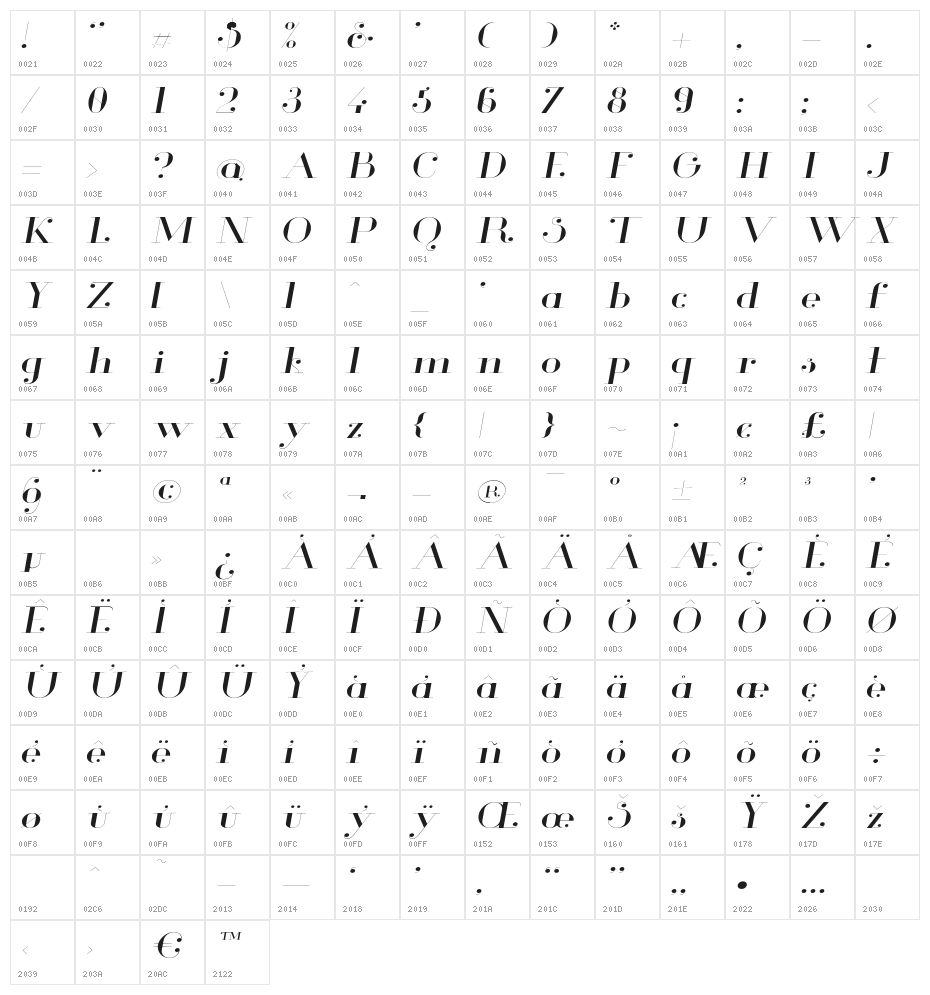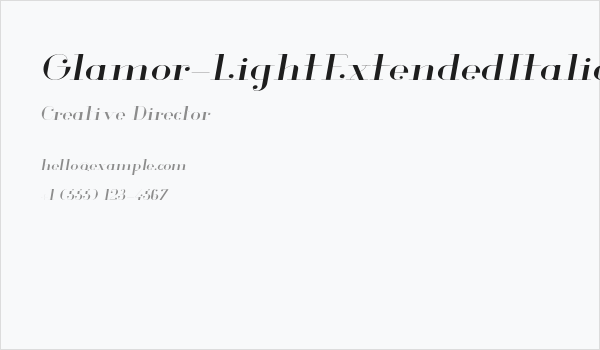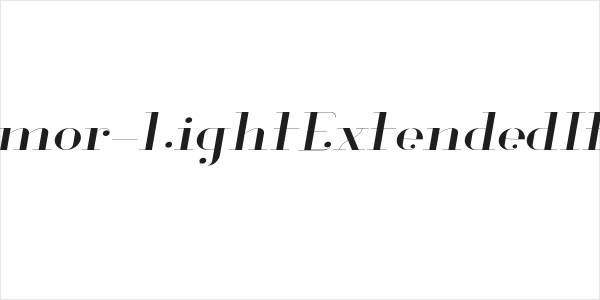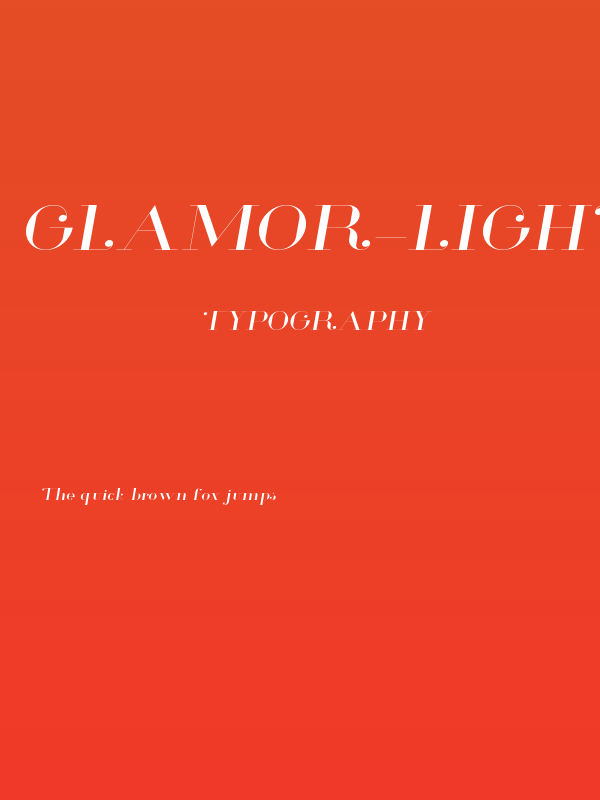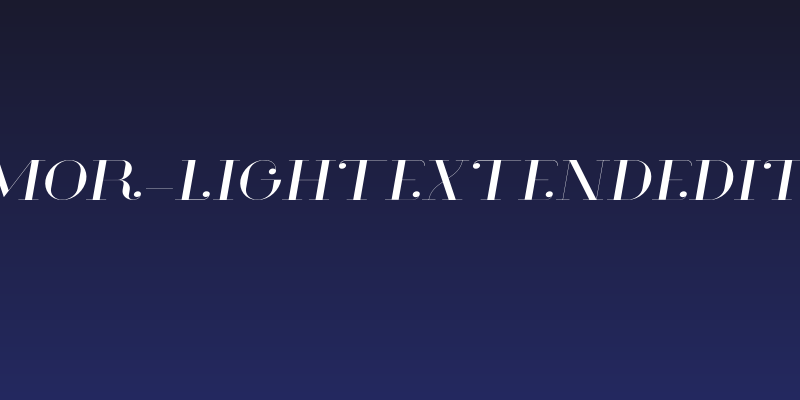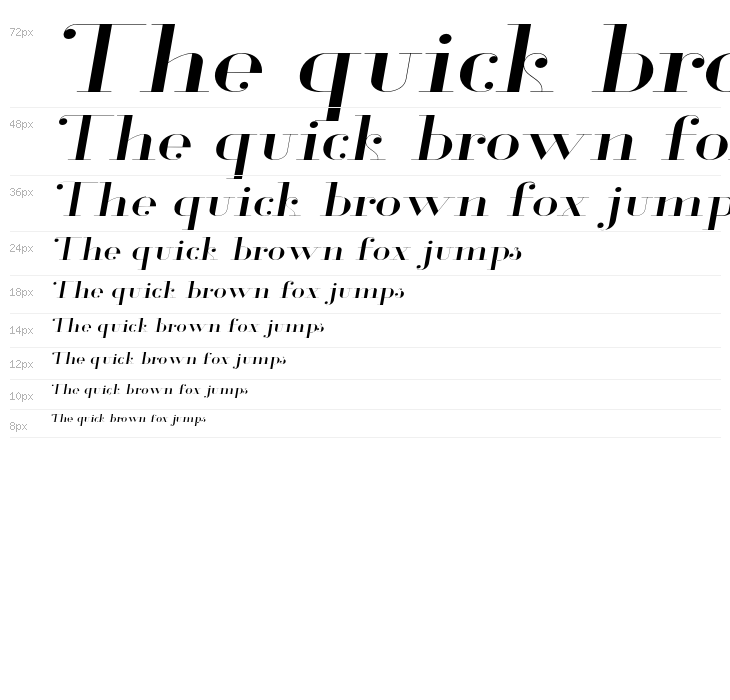
Glamor-LightExtendedItalic Font
Glamor-LightExtendedItalic Description
This font features an elegant and sophisticated design with a distinct italic slant, giving it a dynamic and stylish appearance. The characters are elongated and have a light weight, contributing to a refined and airy feel. The high contrast between thick and thin strokes adds a touch of drama and sophistication, making it suitable for upscale and fashionable applications. The extended width of the characters enhances its modern and sleek look, while the delicate serifs provide a classic touch. This font is perfect for projects that require a blend of modernity and elegance.
| Proposed Projects | Ideal for luxury branding, fashion magazines, elegant invitations, and high-end product packaging. |